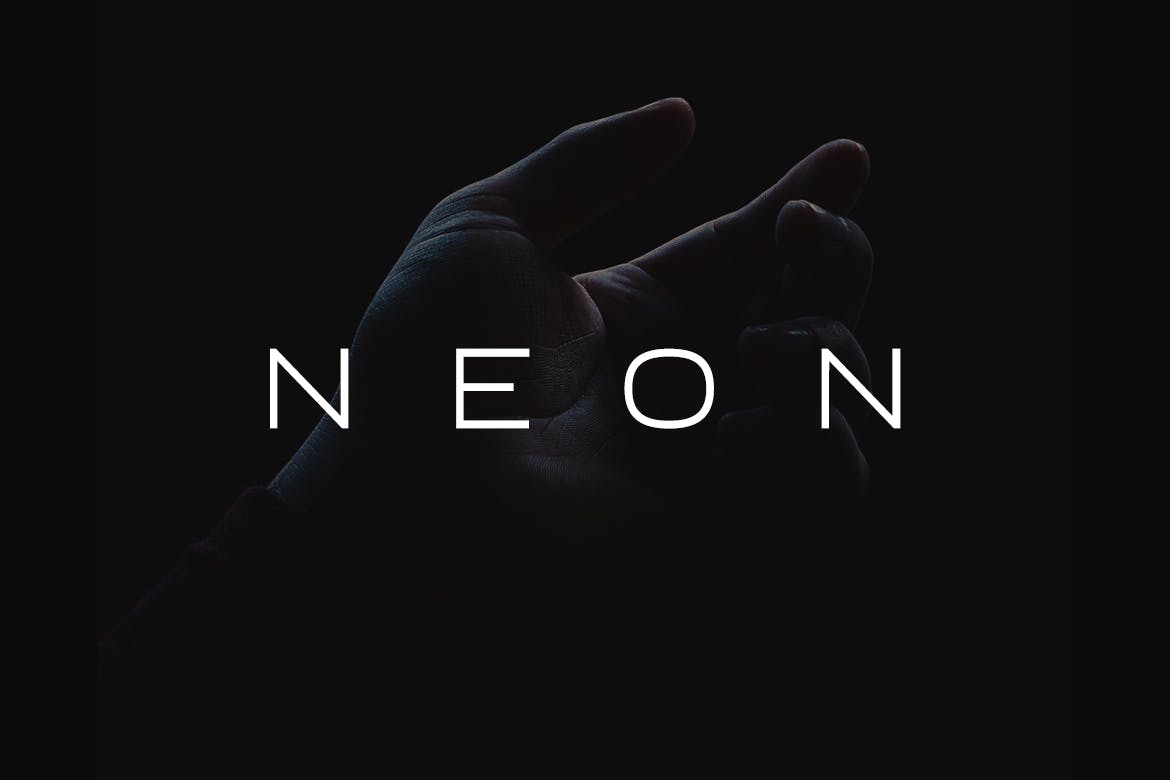
NEON - Minimal & Modern Display Typeface
Perfect for tech branding, modern logos, website headers, digital ads, fashion editorials, and sleek poster designs.
The NEON - Minimal & Modern Display Typeface excites designers with its clean lines, futuristic vibe, and minimalist elegance that bring a fresh, cutting-edge look to any project.
The NEON - Minimal & Modern Display Typeface Free Download is a sleek and versatile typeface crafted for projects that require a modern, stylish presence. Its sharp edges and balanced geometric shapes make it perfect for technology brands, fashion magazines, and digital marketing materials. Whether you’re designing a logo, website header, or social media graphic, NEON adds a contemporary and professional touch.
One of the key strengths of NEON - Minimal & Modern Display Typeface is its excellent readability combined with aesthetic minimalism. It stands out in both large headlines and smaller text, maintaining clarity without sacrificing style. This makes it ideal for a wide range of applications, from print to digital platforms.
In branding, NEON conveys innovation, sophistication, and forward-thinking. It pairs well with monochromatic color schemes, neon accents, and sleek, minimal layouts, helping brands position themselves as modern and dynamic.
For digital use, this font enhances websites, app interfaces, social media campaigns, and video content with its crisp, clean lines. Its modern aesthetic ensures your design communicates professionalism and trendiness in a competitive digital landscape.